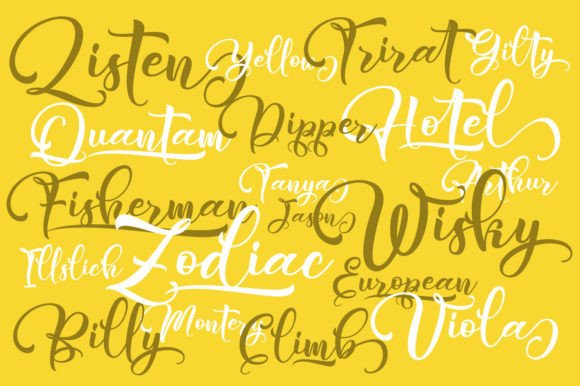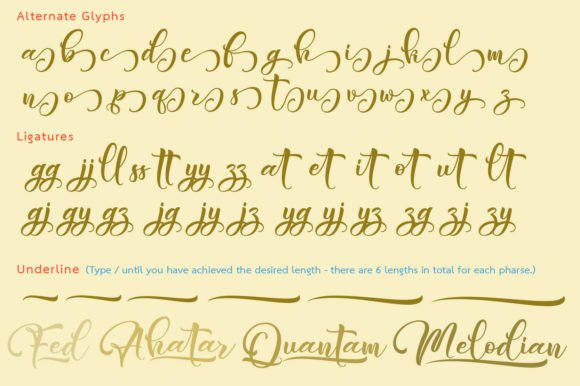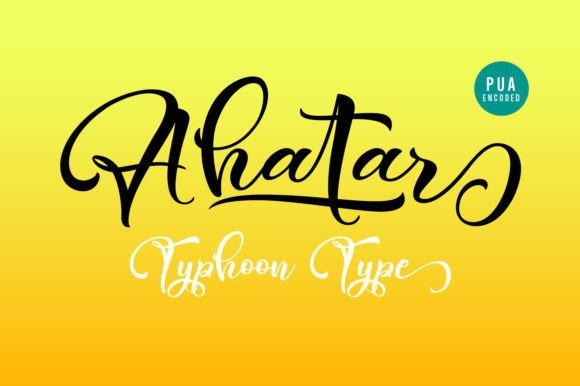
Introduction to Ahatar Font
Ahatar is a delicate and sweet script font, that looks perfect on logos, name tags, advertising, product packaging, clothing, social media & greeting cards.
This font is PUA encoded, which means you can access all of the glyphs and swashes with ease .
Key Features of Ahatar Font
Why Choose Ahatar Font?